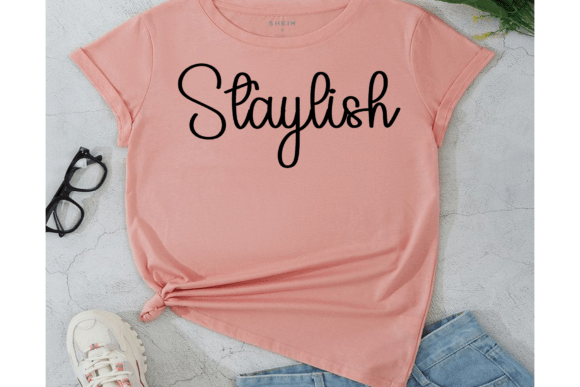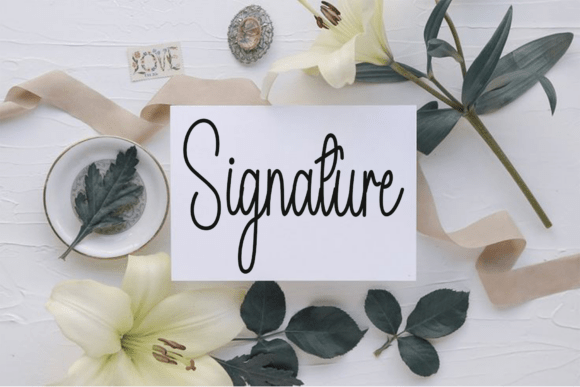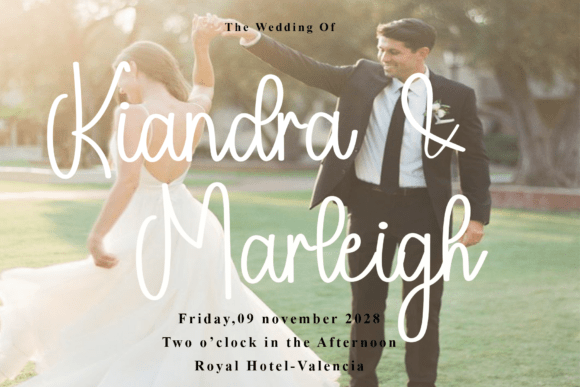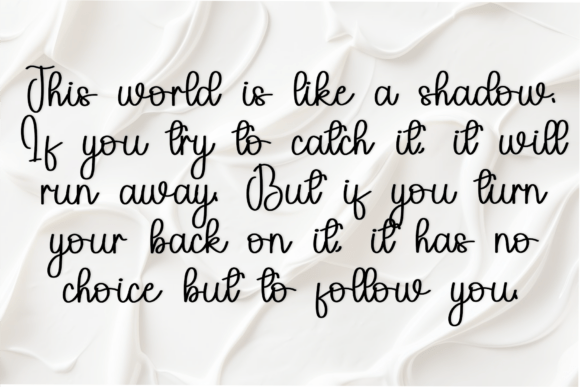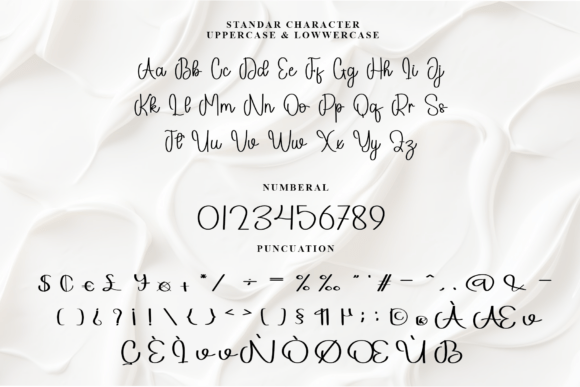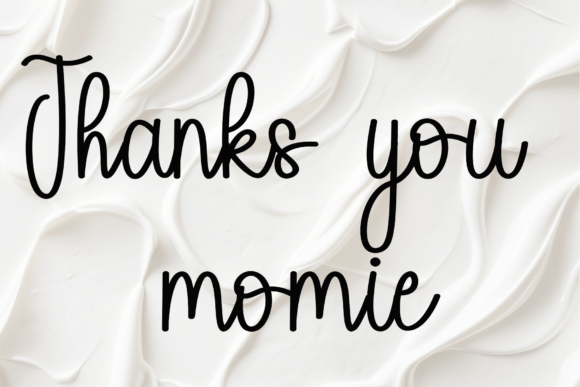
Creaming Font: The Epitome of Modern Minimalism
In the world of typography, fonts play a crucial role in defining the aesthetic and tone of a brand, product, or publication. With the rise of minimalism in design, the demand for clean, simple, and elegant fonts has increased. One such font that has gained popularity among designers and crafters is the Creaming font. This article will explore the features, benefits, and uses of the Creaming font, and why it’s an excellent choice for interior design branding, real estate logos, and contemporary lifestyle magazines.
What is Creaming Font?
Creaming font is a modern, monolinear handwritten typeface that embodies the essence of minimalism. Its sleek and slender characters feature soft curves, making it an ideal choice for designs that require a touch of elegance and sophistication. The font’s tall and narrow structure gives it a unique and distinctive look, setting it apart from other fonts in the same category.
Key Features of Creaming Font
- Monolinear design: The Creaming font features a monolinear design, which means that the strokes that make up the characters are of uniform width. This gives the font a clean and minimalist look.
- Sleek and slender characters: The characters in the Creaming font are tall and slender, making it perfect for designs that require a sense of elegance and sophistication.
- Soft curves: The font features soft curves, which add a touch of warmth and approachability to the design.
- Professional and approachable: The Creaming font strikes the perfect balance between professionalism and approachability, making it suitable for a wide range of design applications.
Benefits of Using Creaming Font
The Creaming font offers several benefits to designers and crafters, including:
- Versatility: The Creaming font is versatile and can be used in a variety of design applications, from interior design branding to real estate logos and contemporary lifestyle magazines.
- Elegance: The font’s sleek and slender characters add a touch of elegance and sophistication to any design.
- Readability: The Creaming font is highly readable, making it perfect for body text and headlines.
- Uniqueness: The font’s distinctive look sets it apart from other fonts in the same category, making it an excellent choice for designers who want to create a unique brand identity.
Uses of Creaming Font
The Creaming font is an excellent choice for a wide range of design applications, including:
- Interior design branding: The font’s sleek and elegant design makes it perfect for interior design branding, including logos, business cards, and website headers.
- Real estate logos: The Creaming font is an excellent choice for real estate logos, as it conveys a sense of professionalism and approachability.
- Contemporary lifestyle magazines: The font’s modern and minimalist design makes it perfect for contemporary lifestyle magazines, including headings, subheadings, and body text.
Tips for Using Creaming Font
Here are some tips for using the Creaming font effectively:
- Use it sparingly: While the Creaming font is elegant and sophisticated, it’s essential to use it sparingly to avoid overwhelming the design.
- Pair it with other fonts: The Creaming font can be paired with other fonts to create a unique and visually appealing design.
- Experiment with colors: The font’s sleek design makes it perfect for experimenting with different colors and textures.
In conclusion, the Creaming font is a modern, monolinear handwritten typeface that embodies the essence of minimalism. Its sleek and slender characters feature soft curves, making it an excellent choice for interior design branding, real estate logos, and contemporary lifestyle magazines. With its versatility, elegance, readability, and uniqueness, the Creaming font is an excellent addition to any designer’s font library.